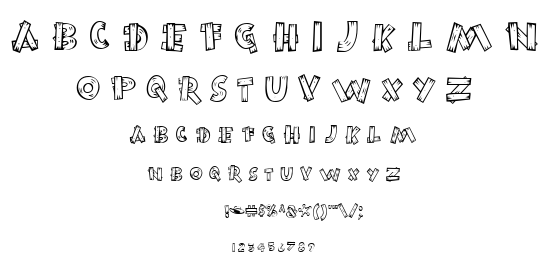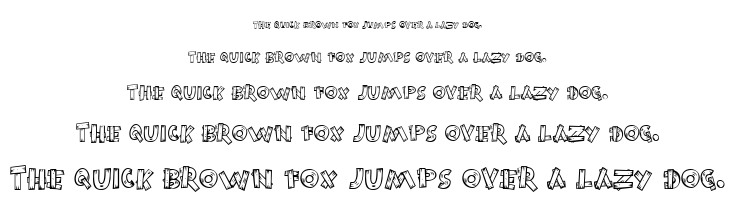
Burnstown Dam is a small caps, plank font from out in the sticks. Perfect for moonshine labels, hillbilly weddings or corn roasts. Don’t forget to read the files inside the zip for details. Updated in 2012.